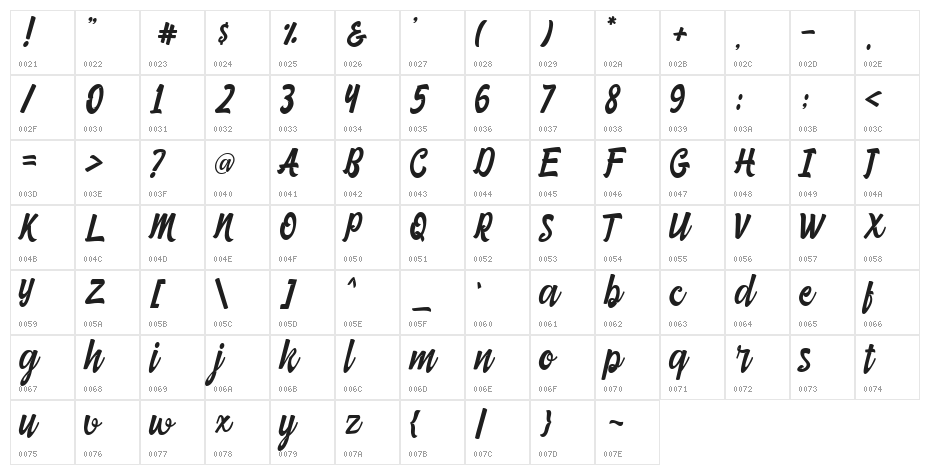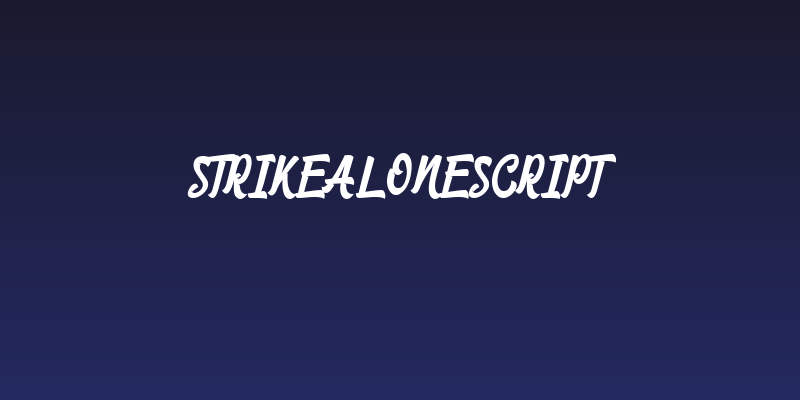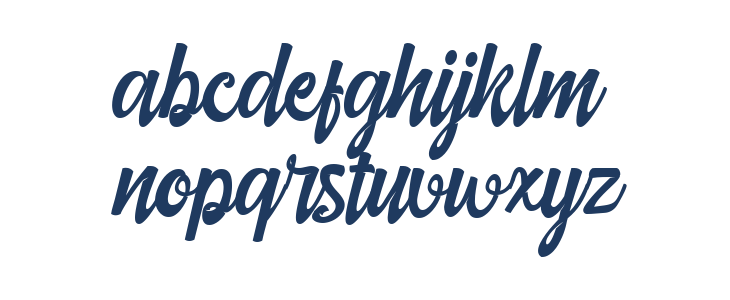
StrikeAloneScript Font
StrikeAloneScript Description
This font exudes a bold and dynamic script style, characterized by its fluid, cursive strokes and a sense of movement. The uppercase letters are prominent and slightly slanted, giving a sense of elegance and flair. The lowercase letters maintain a consistent flow, with smooth connections between characters, enhancing readability while retaining a stylish appearance. The numerals are bold and well-defined, complementing the overall script style. Special characters are integrated seamlessly, maintaining the font's cohesive look. This font is ideal for projects that require a touch of sophistication and energy.
| Use Case | Logos, Headlines, Invitations |
| Proposed Projects | Ideal for wedding invitations, branding, logos, and elegant packaging designs. |